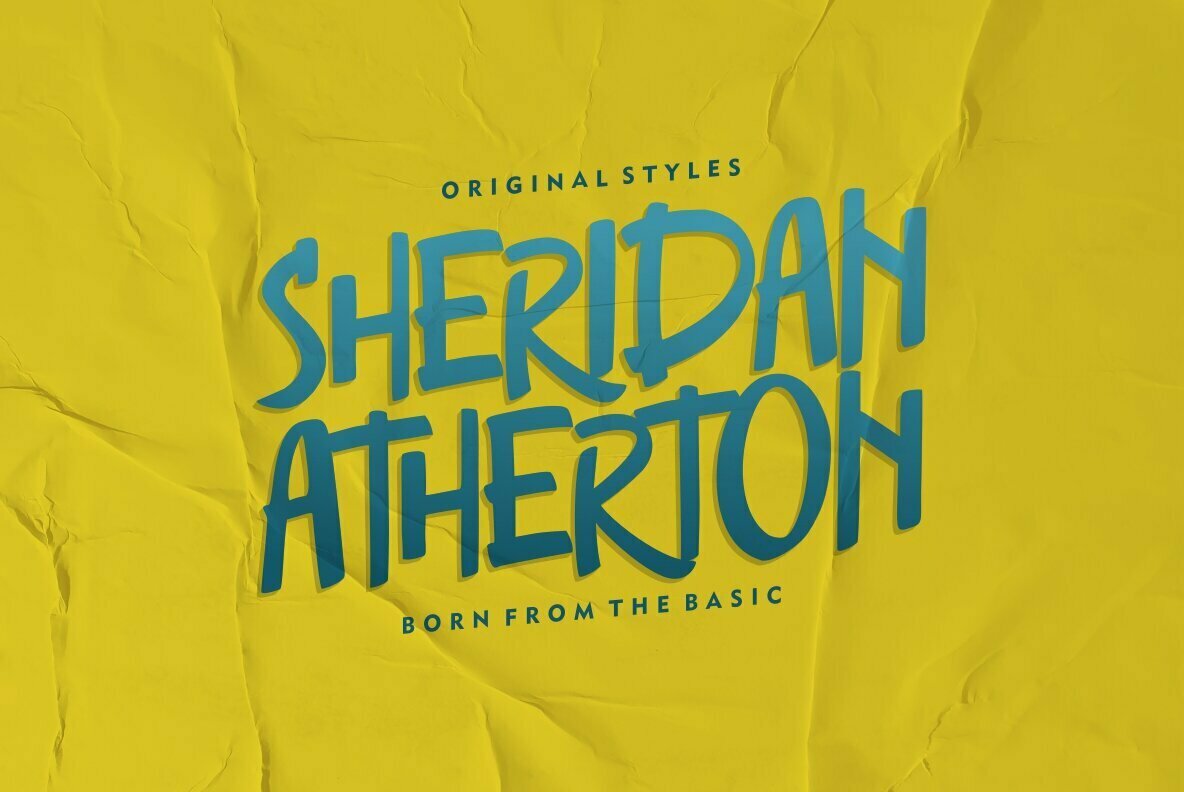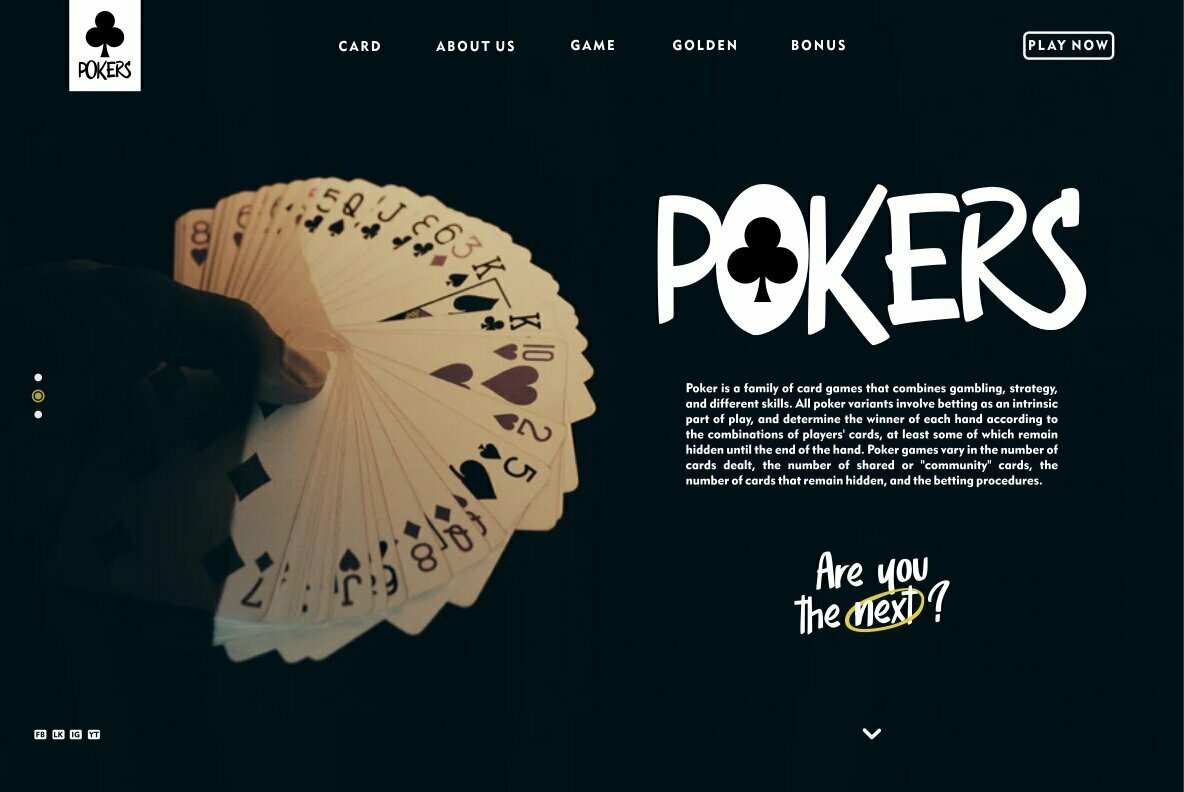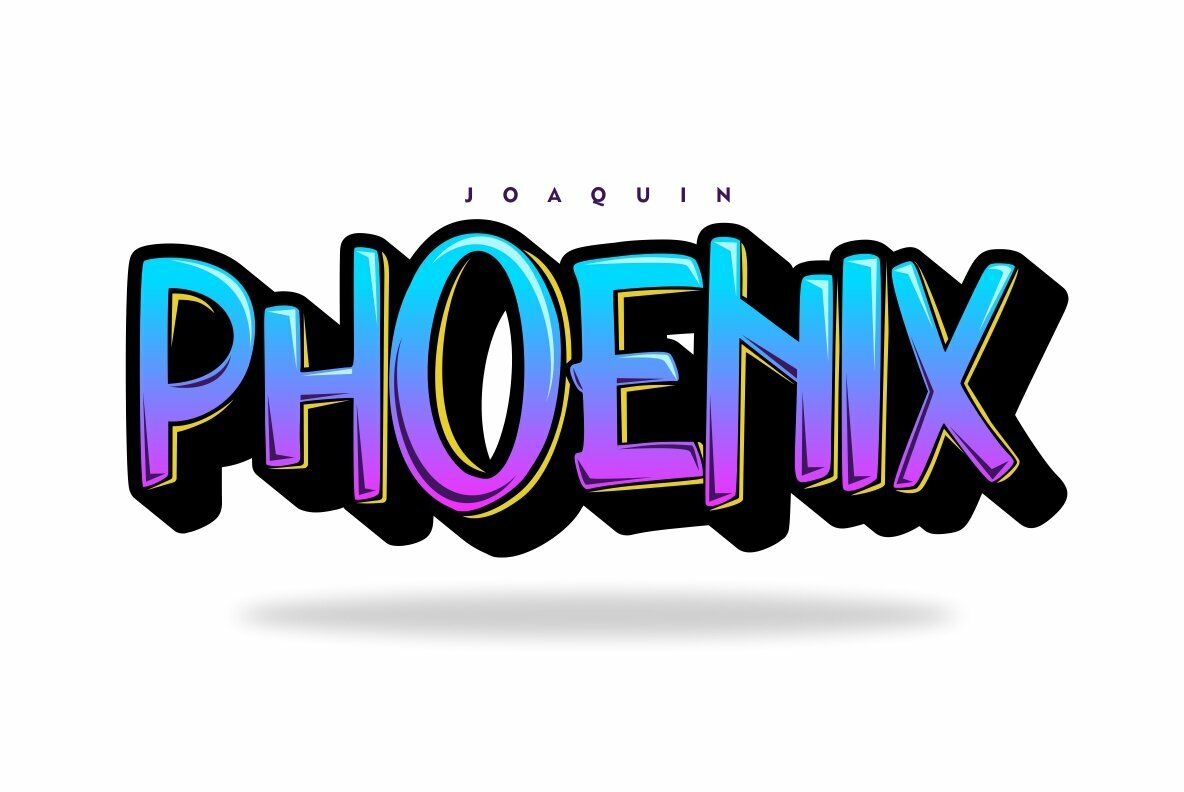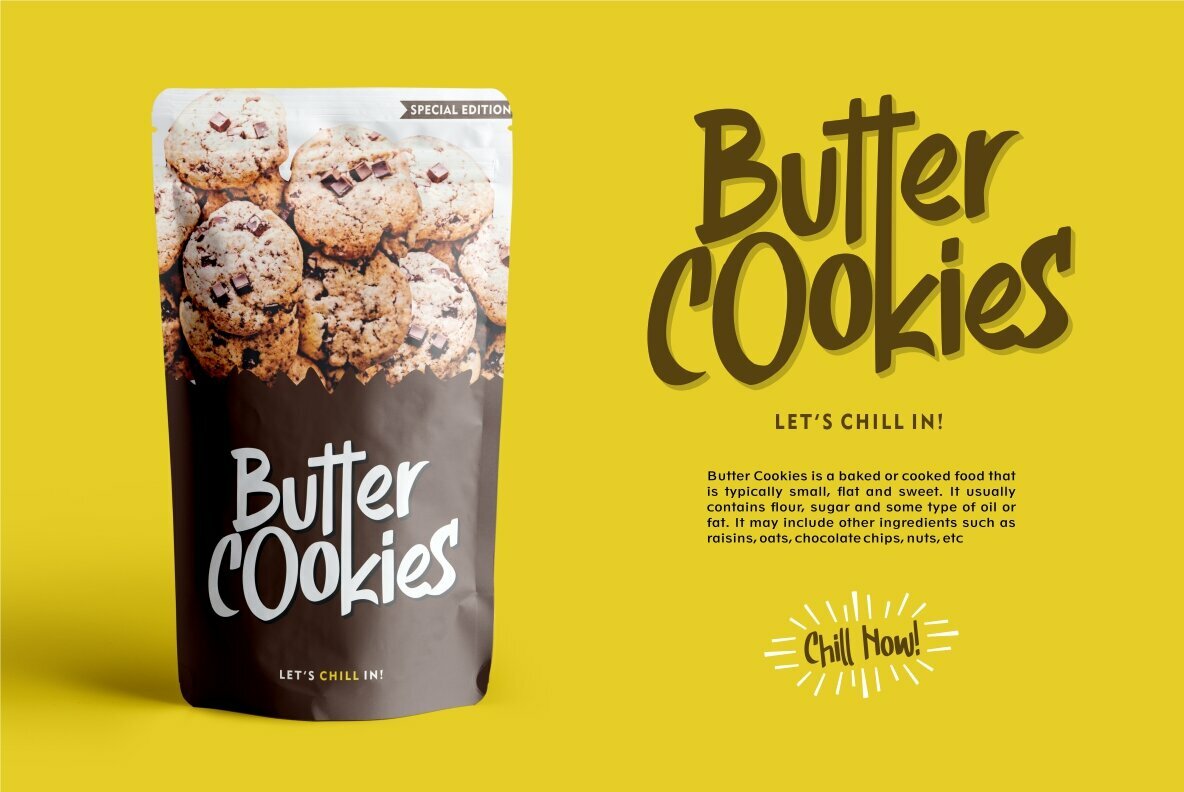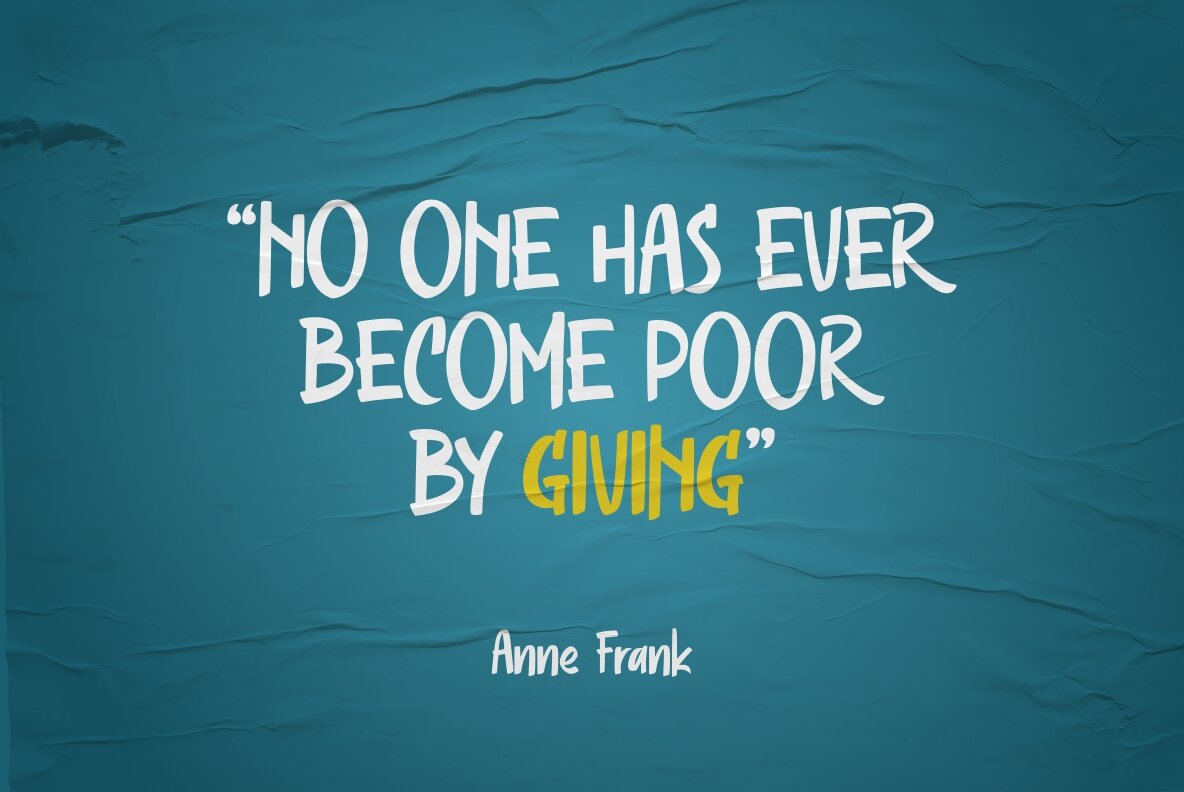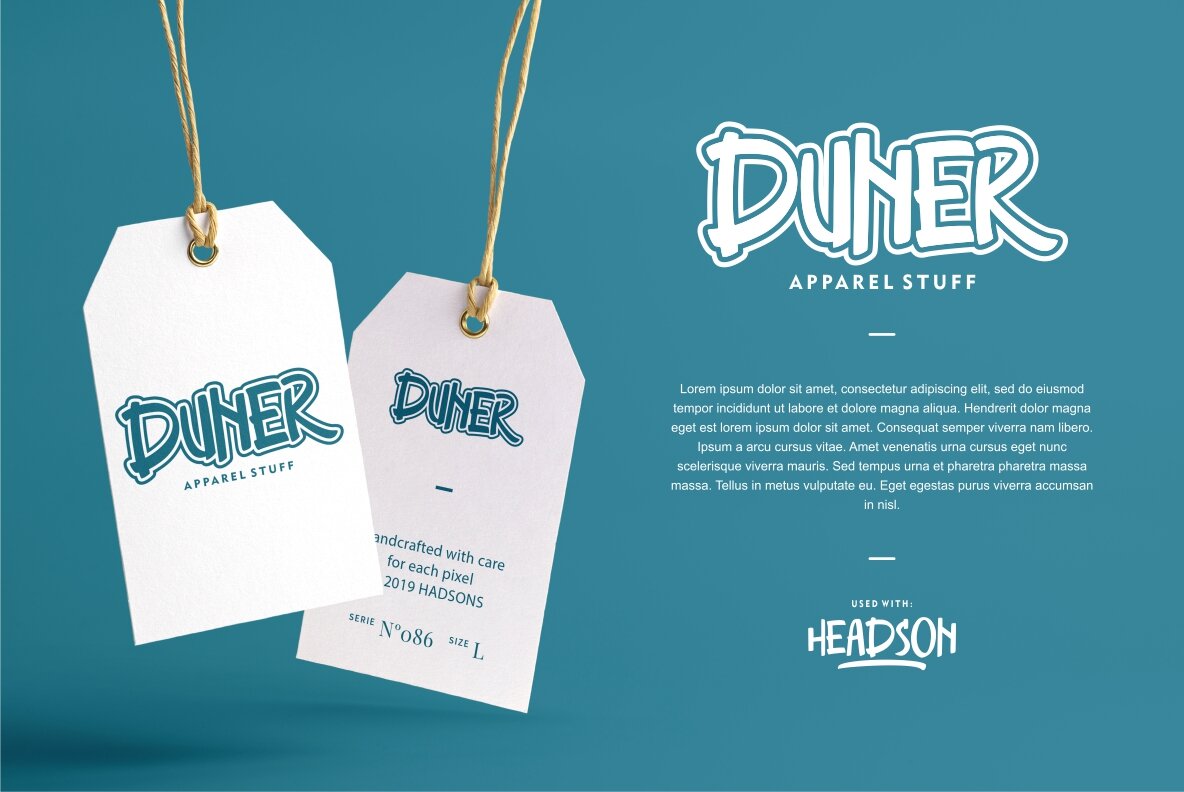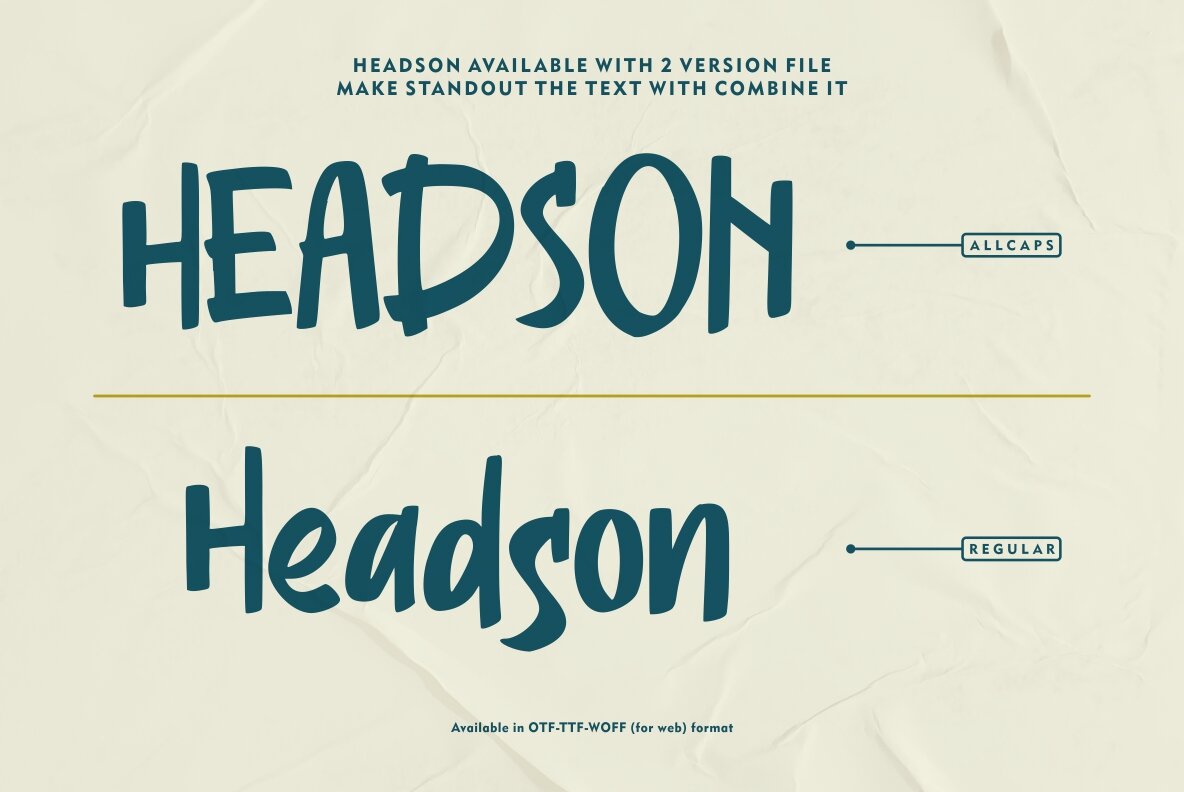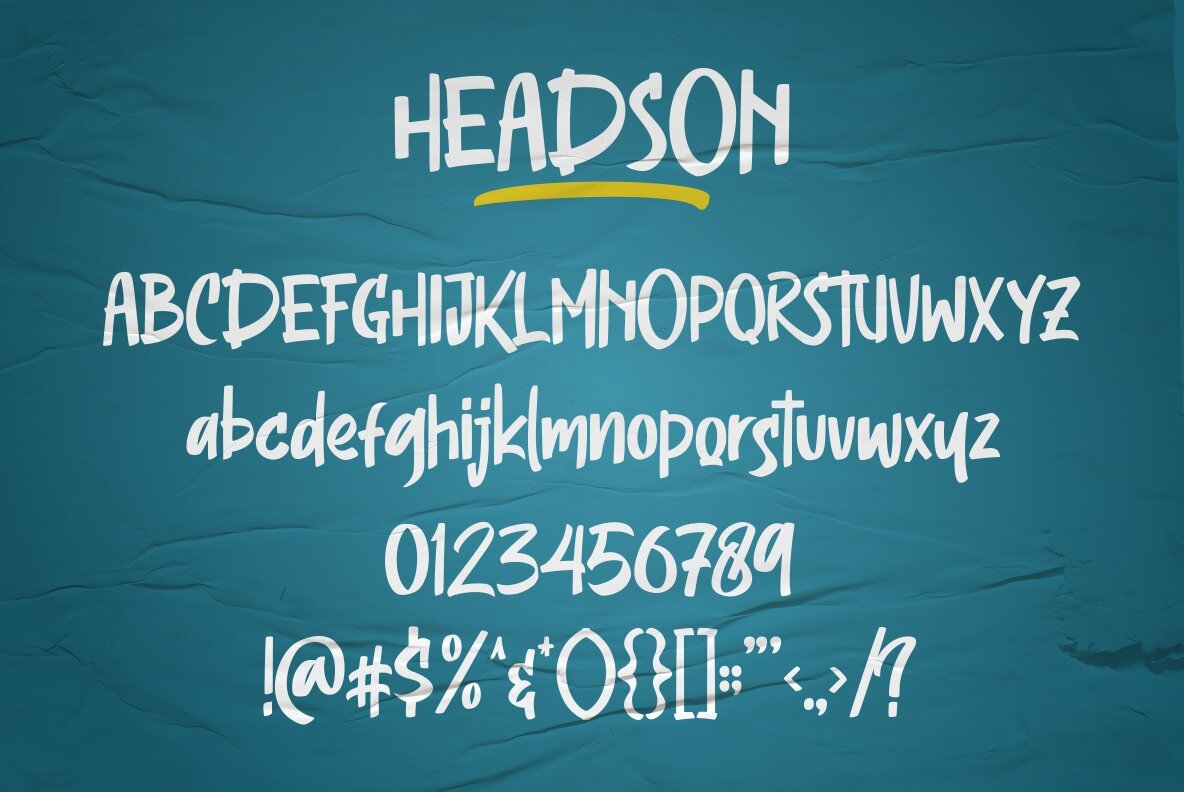
Headson Font
Headson presents a blend of elegant curves and a modern urban flair, making it an ideal choice for designers seeking to create compelling visuals. With its versatile script, Headson enhances a wide range of applications—from logo designs and brand imagery to product packaging and social media posts.Headson: Urban Script with Stylish Appeal